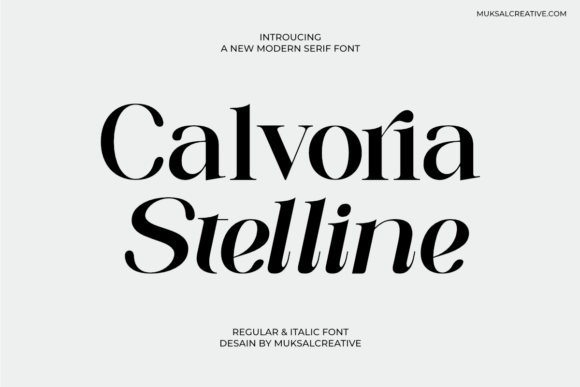
Introducing Calvoria Stelline: The Epitome of Modern Serif Elegance
In the realm of typography, fonts play a pivotal role in conveying messages, evoking emotions, and creating lasting impressions. Among the myriad of fonts available, Calvoria Stelline stands out as a beacon of modern sophistication, blending timeless elegance with a refined contemporary touch. This versatile font is designed to cater to a wide array of design needs, making it an indispensable asset for creatives and designers.
The Essence of Calvoria Stelline
Calvoria Stelline is a modern serif font that exudes an aura of refinement and luxury. Its design is characterized by balanced proportions, sharp details, and graceful curves, which collectively contribute to its sophisticated appeal. The font comes in two styles: Regular and Italic, offering flexibility and versatility in various design applications.
Design Characteristics
- Balanced Proportions: Calvoria Stelline’s letters are meticulously crafted to ensure harmony and readability, making it perfect for lengthy texts and editorial layouts.
- Sharp Details: The font’s sharp details add a layer of precision and elegance, elevating the overall aesthetic of any design.
- Graceful Curves: The incorporation of graceful curves in Calvoria Stelline softens its appearance, adding a touch of warmth and approachability.
Applications of Calvoria Stelline
Given its sophisticated and versatile nature, Calvoria Stelline is suitable for a multitude of design projects. Here are some of the areas where this font truly shines:
Editorial Layouts
For magazines, newspapers, and digital publications, Calvoria Stelline offers the perfect blend of readability and style. Its balanced proportions and sharp details ensure that content is presented in a clear and engaging manner.
Branding and Logos
In the world of branding, establishing a strong visual identity is crucial. Calvoria Stelline can be used to create elegant and memorable logos, setting a brand apart from its competitors.
Wedding Invitations and Stationery
The font’s elegant and refined appearance makes it an excellent choice for wedding invitations, stationery, and other formal event materials. It adds a touch of luxury and sophistication, setting the tone for a memorable occasion.
Fashion Logos and Boutique Brands
In the fashion industry, aesthetics are everything. Calvoria Stelline can be used to create stylish and compelling logos for fashion brands, boutiques, and designer labels, reflecting a sense of style and exclusivity.
Why Choose Calvoria Stelline?
Choosing Calvoria Stelline for your design projects comes with numerous benefits:
- Versatility: Its two styles (Regular and Italic) offer flexibility for various design applications.
- Readability: The font’s design ensures high readability, making it suitable for both headings and body text.
- Elegance: It adds a touch of sophistication and elegance to any design.
- Timeless Appeal: Unlike trendy fonts that may quickly become outdated, Calvoria Stelline’s classic serif design ensures it remains relevant for years to come.
In conclusion, Calvoria Stelline is a remarkable addition to the world of typography. Its blend of modernity and classic elegance, combined with its versatility and readability, makes it an ideal choice for designers seeking to create sophisticated and stylish impressions. Whether it’s for editorial layouts, branding, wedding invitations, fashion logos, or any project that demands a confident and stylish touch, Calvoria Stelline is sure to exceed expectations.
Embracing Calvoria Stelline in your typography arsenal can significantly elevate the quality and aesthetic of your designs. Experience the blend of timeless elegance and modern sophistication it has to offer, and discover why it is rapidly becoming a favorite among designers worldwide.